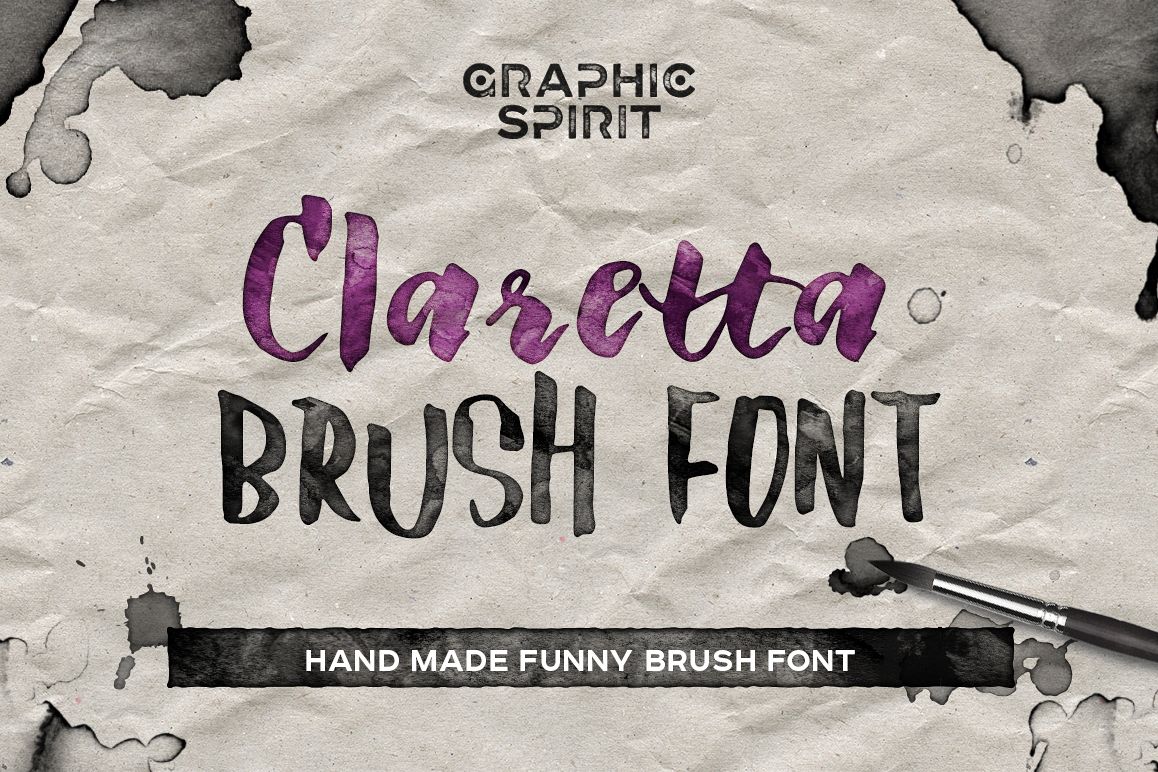
Claretta Brush Ink Font
Download this fun, playful font, hand-drawn brush, and ink. It is perfectly suitable for the decoration of informal postcards, posters, kraft style packaging. In the presentation used the product: INKBOX: Realistic Ink Effects https://designbundles.net/graphicspirit/10740-inkbox-realistic-ink-effects/rel=aypYI